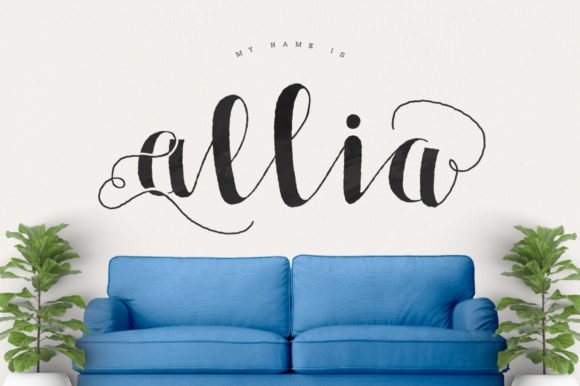
The Perfect Brushstroke: Unveiling the Allia Font
As a designer, you know that moment of pure creativity – when a project suddenly comes to life, and every element falls into place. You envision the perfect typography, the flowing lines, and the subtle elegance that will elevate your design to new heights. For many, that moment is made possible with the Allia Font.
Allia Font is a masterfully designed handwritten font, crafted to become a true favorite among designers and creatives. Its versatility makes it perfectly suited for stationery, logos, branding, posters, and even wedding designs. The Allia Font’s unique brushstroke style brings a touch of warmth and personality to any project, making it a valuable addition to any designer’s toolkit.
Allia Font Key Features
- Font Size: The font family includes multiple weights, ranging from Light (300) to Extra Bold (900), offering a wide range of design possibilities.
- Unique Characteristics: The font features a clean, modern design with subtle rounded edges, giving it a friendly and approachable feel.
- Scalability: The font is optimized for use at various font sizes, from small captions to large headlines, ensuring it remains legible and visually appealing across different contexts.
Designer Review: Allia Font
As a designer, I’ve had the opportunity to work with a wide range of fonts, and my experience with Allia has been a mixed bag. On the one hand, here are some things that work well: ✨
- Unique aesthetic: Allia has a distinct, elegant look that can add a touch of sophistication to any design project.
- Highly legible: The font is easy to read, even at smaller sizes, making it perfect for body text or other applications where readability is crucial.
- Good for corporate or luxury brands: Allia’s refined, upscale feel makes it well-suited for companies or individuals who want to project a sense of high-end quality.
On the other hand, here are some limitations I’ve encountered: ⚠️
- May not be as versatile: While Allia is great for certain types of projects, it may not be the best choice for more casual or playful designs.
- Lack of bold weight options: While the font has a range of weights, the bold weight is not as robust as I’d like, which can make it harder to use in certain contexts.
Overall, I think Allia is a solid choice for the right projects, but it’s not a one-size-fits-all solution. With some careful consideration and planning, it can be a great addition to your design toolkit.
Allia Font Practical Application Guide
Experiment with different font sizes and styles to get the most out of Allia. Use it in combination with other fonts to create a unique and visually appealing design.
Allia is a versatile font that can be used in a variety of design applications, including:
- Body text
- Print materials (business cards, brochures, etc.)
Alternatives to Allia Font for Designers